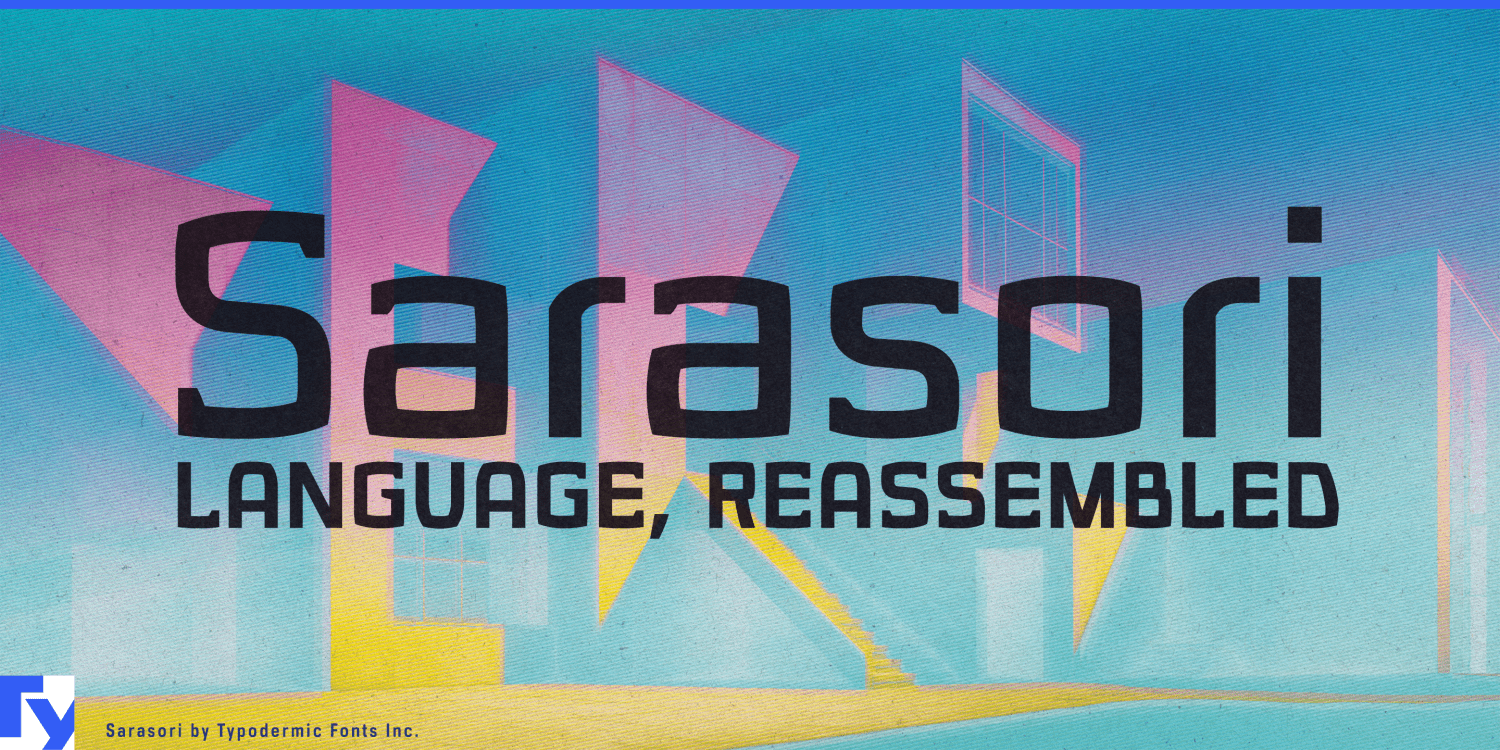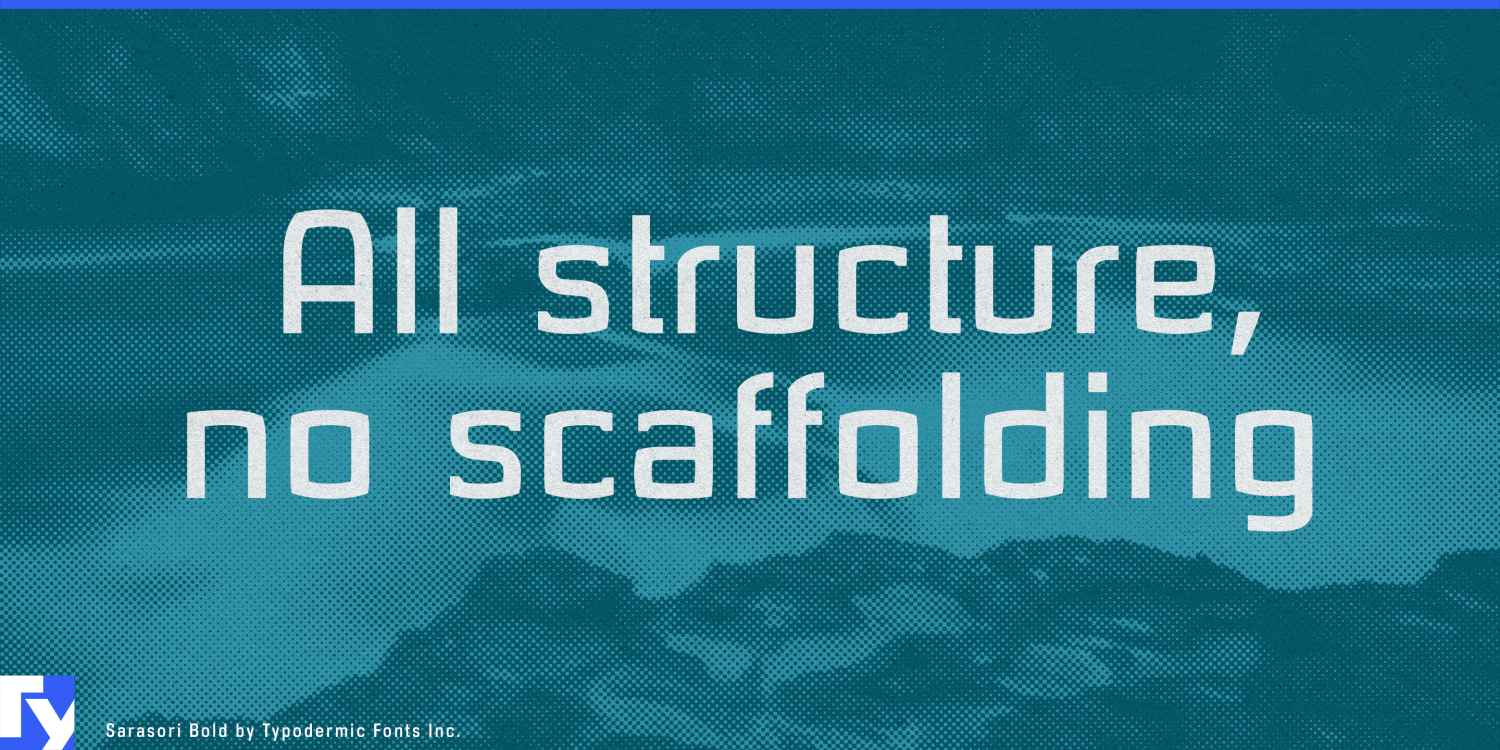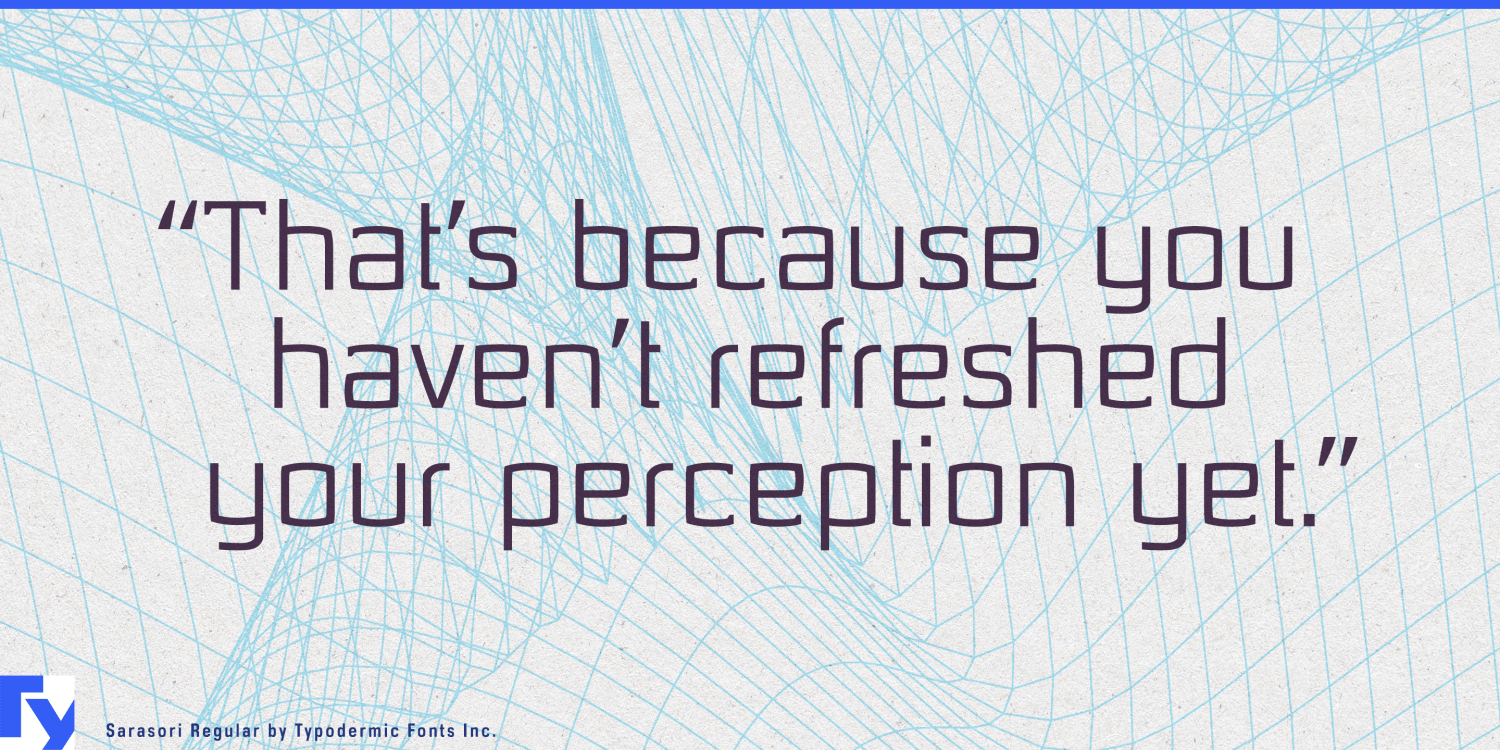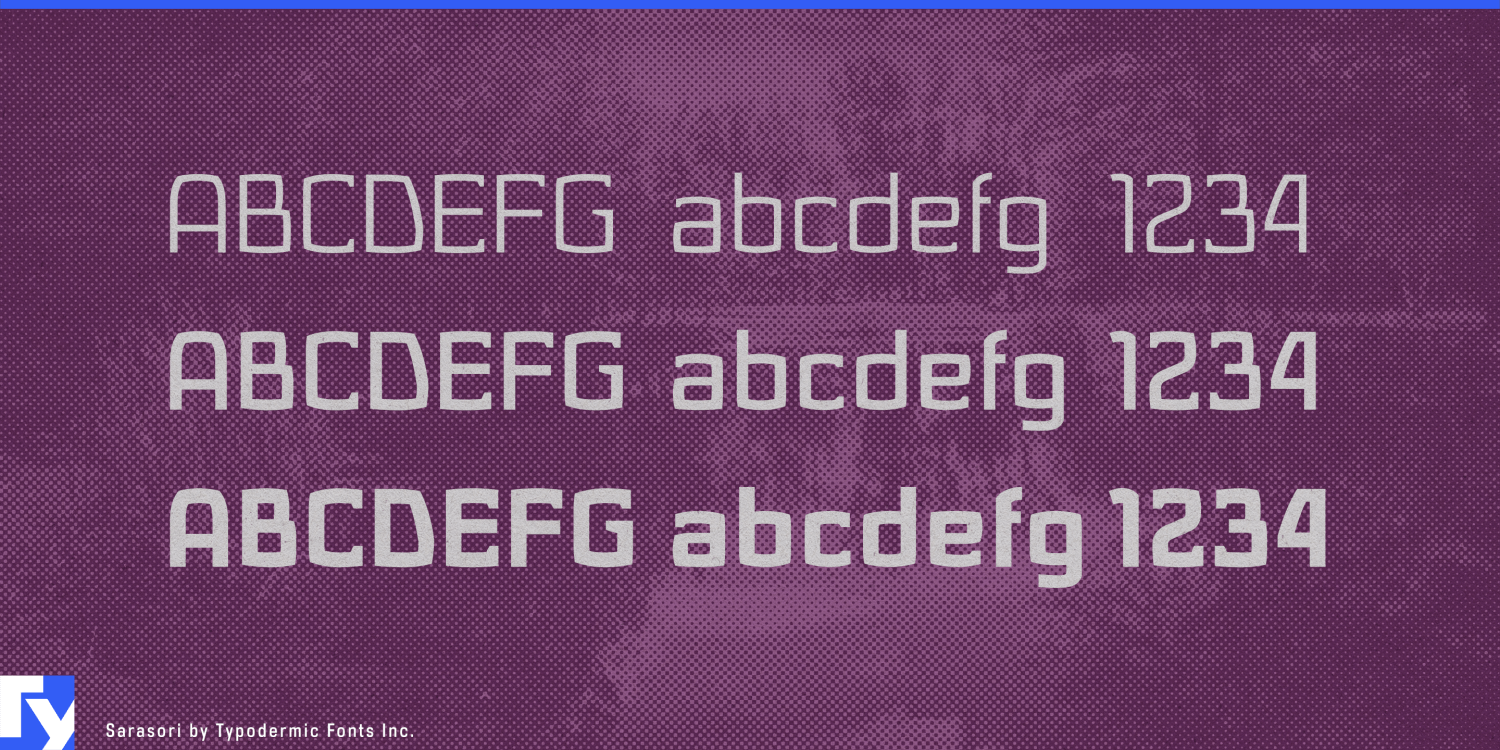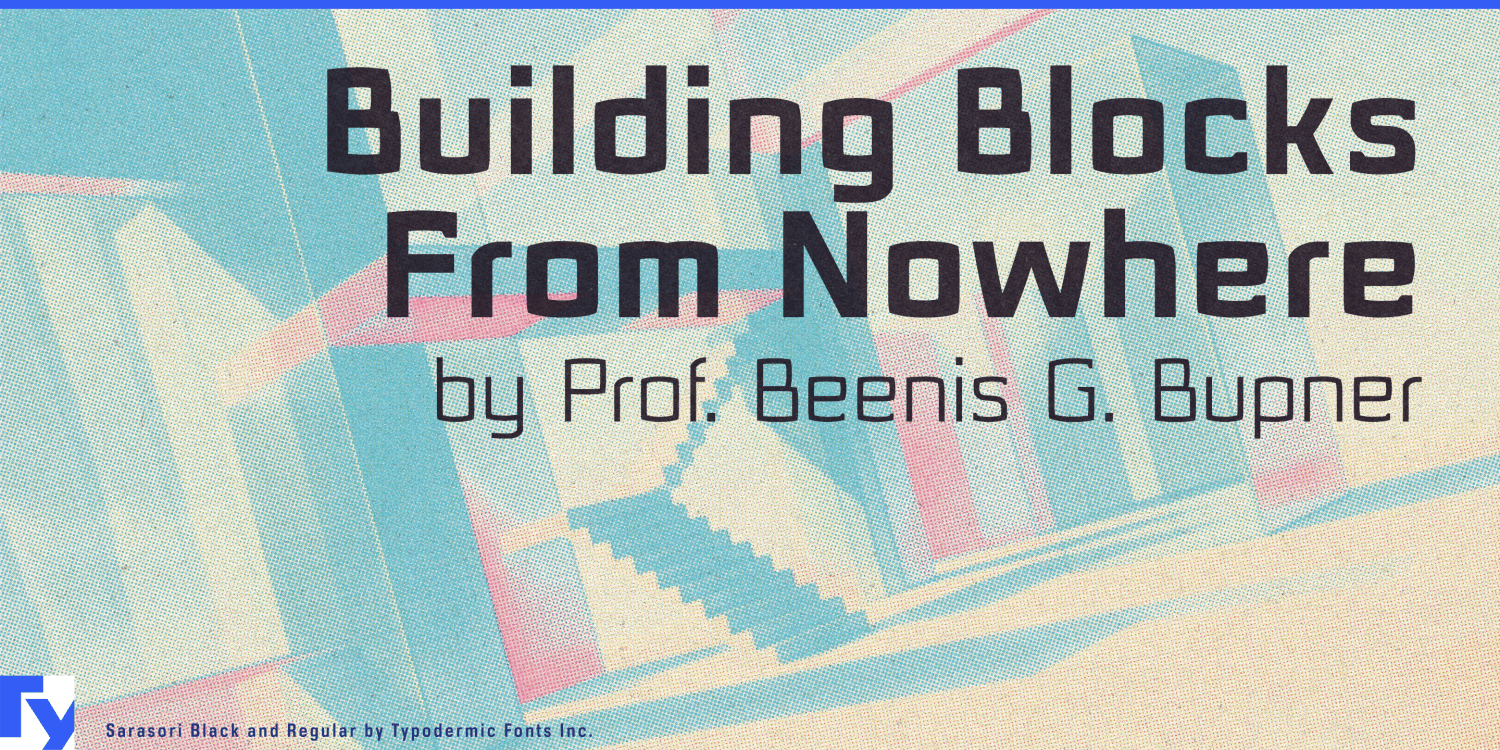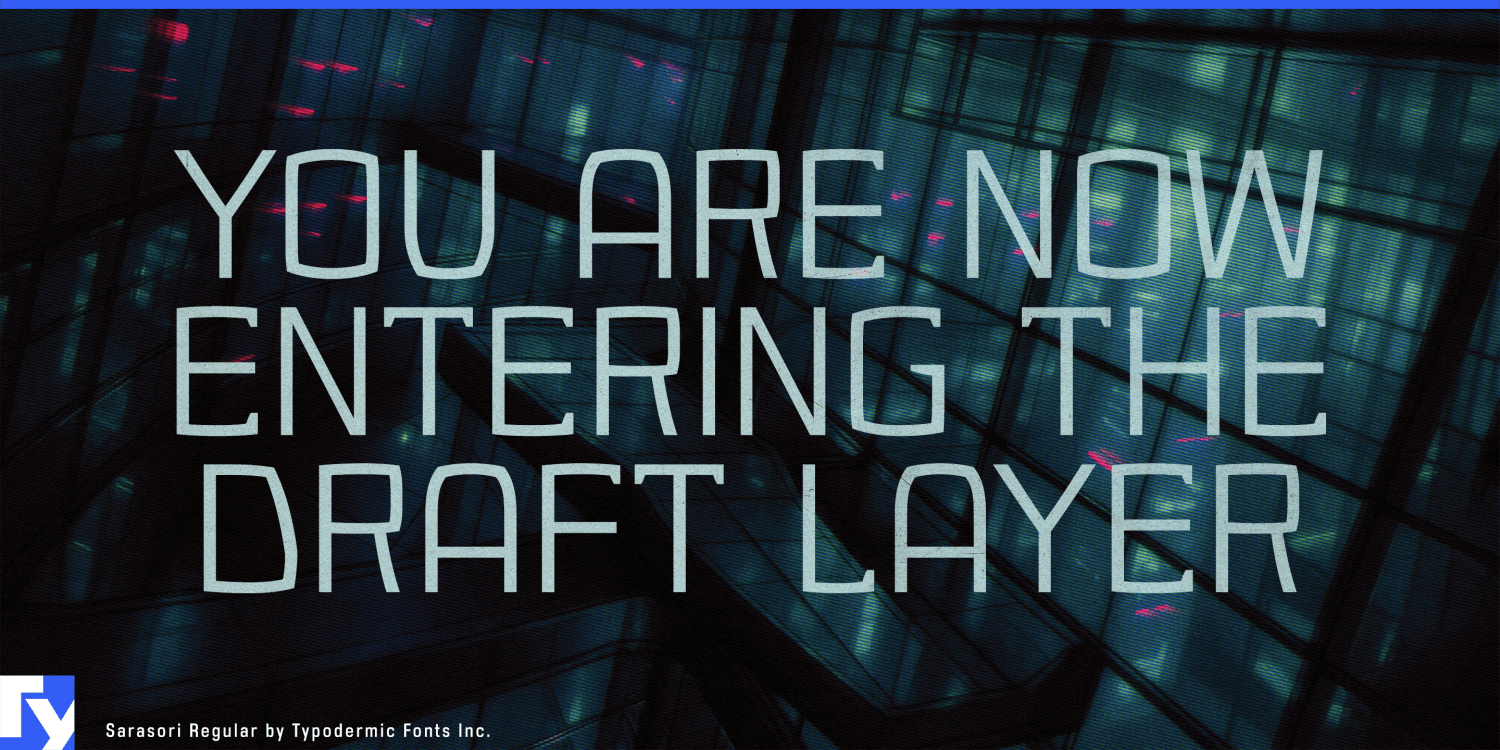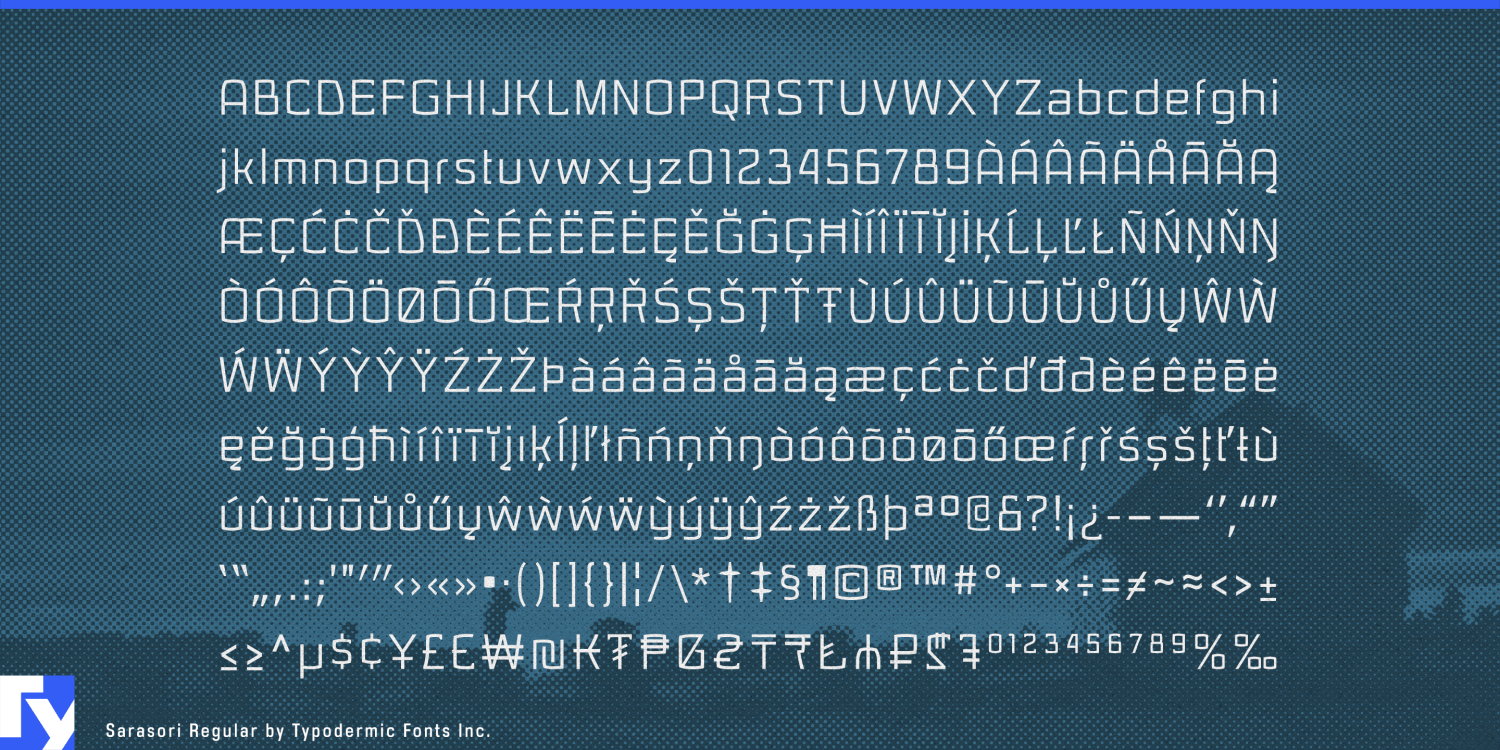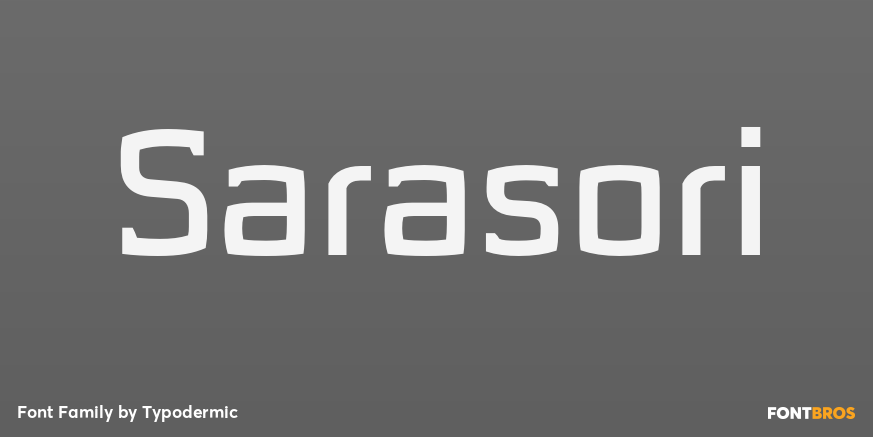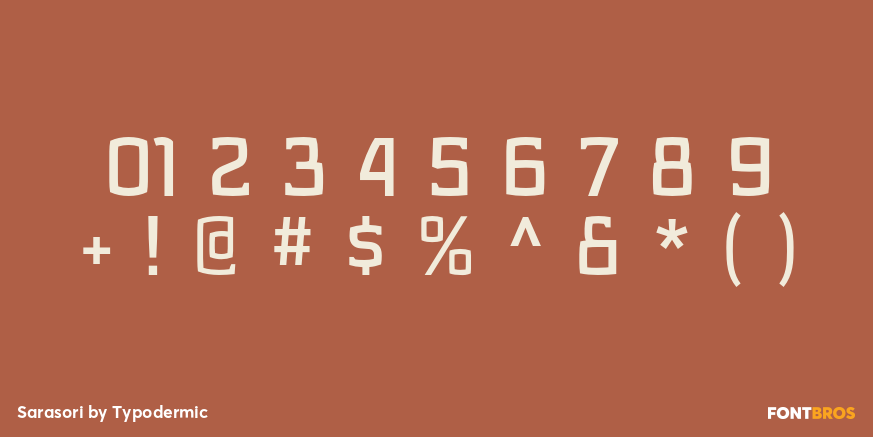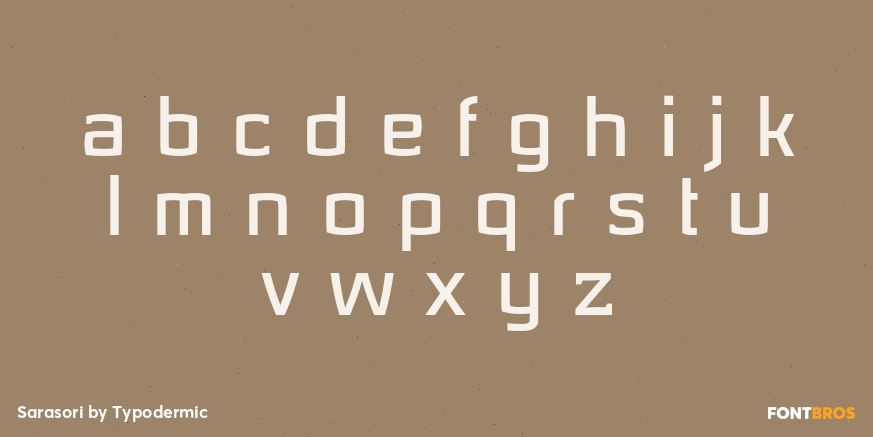
Sarasori
Most technological typefaces begin with familiar letterforms, then add cuts, gaps or mechanical details. That approach can supply a technological accent, but it still leaves the alphabet recognizably human. Sarasori changes the underlying structure. Its modular strokes, abrupt joints and unfamiliar transitions make the letters appear assembled according to a system rather than shaped by a hand.
That quality gives Sarasori a clear role in autonomous software. Agent platforms, orchestration systems and machine-operated services need identities that distinguish them from ordinary business applications without drifting into theatrical science fiction. Sarasori can name the platform, agent class or operational layer; a neutral companion face can handle documentation, controls and dense interface text.
Simulation and synthetic-data systems create a related opportunity. These platforms generate environments, scenarios and sensory information for robots, vehicles and other autonomous machines before they encounter the physical world. Sarasori suits platform identities, visualization headings, demonstrations and developer events because the lettering itself seems produced by an unfamiliar ruleset.
Generative engineering extends the same idea into physical production. Topology optimization, lattice design, additive manufacturing and robotic fabrication derive forms from goals, materials and constraints. Sarasori can identify design platforms, industrial printing systems, computational-material products and advanced component families without making serious engineering resemble generic corporate software.
Architecture is one of its strongest visual environments, especially when a building reveals how it was generated or assembled. Faceted façades, structural lattices, modular systems, parametric surfaces and robotic construction can harmonize with Sarasori’s constructed alphabet. The connection is structural rather than historical; it does not imitate blueprints or engineering notation.
Sarasori can also establish fictional machine cultures, synthetic corporations and procedural worlds in games or film. Its mixed-case forms allow invented systems, manufacturers and devices to communicate in short phrases while retaining a voice independent of conventional human lettering.
Sarasori is built for technology and structures that should look genuinely unfamiliar. It does not apply a futuristic surface to ordinary forms; it reconstructs the alphabet from the inside out.